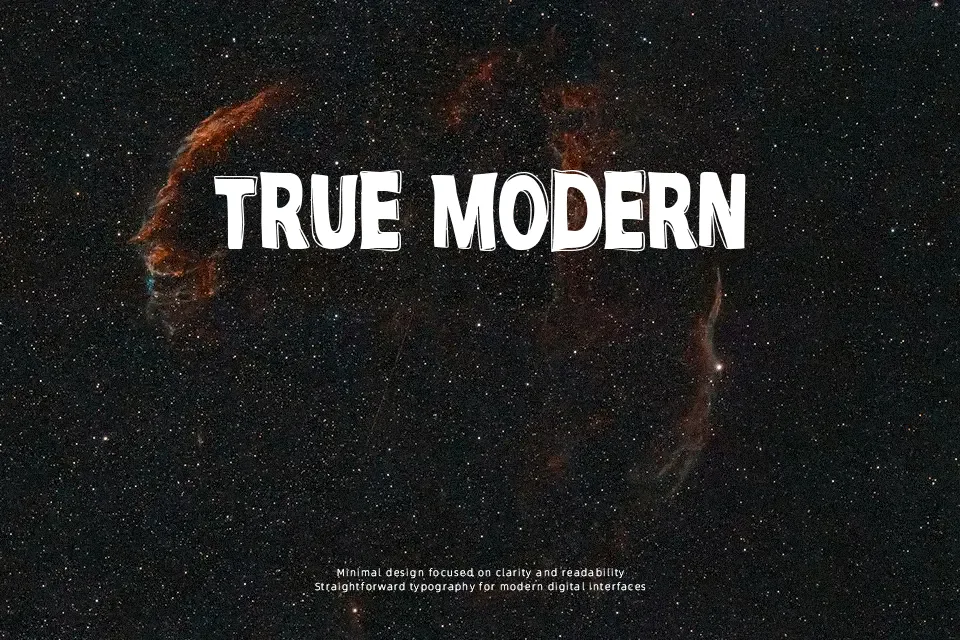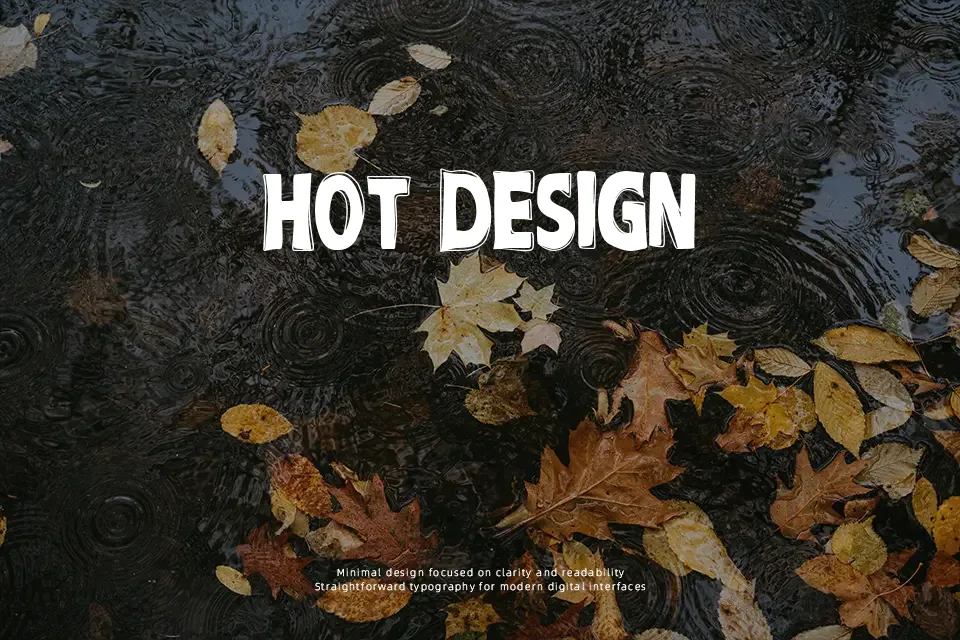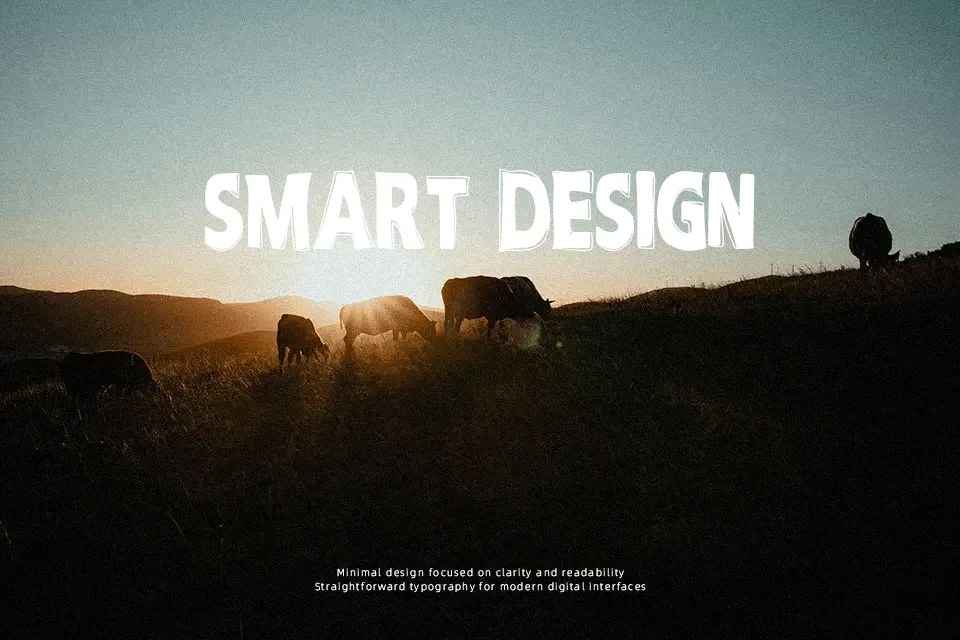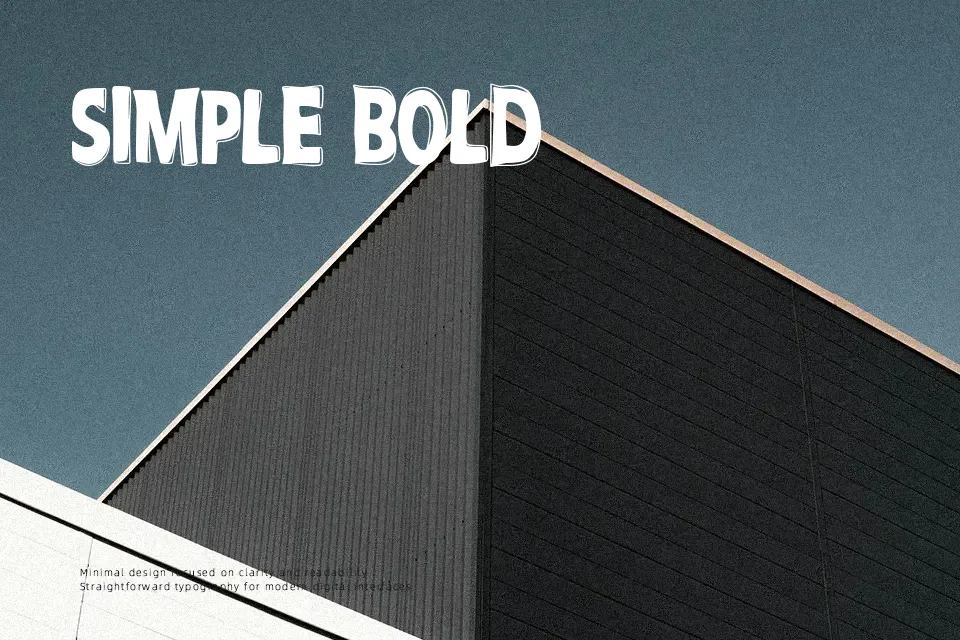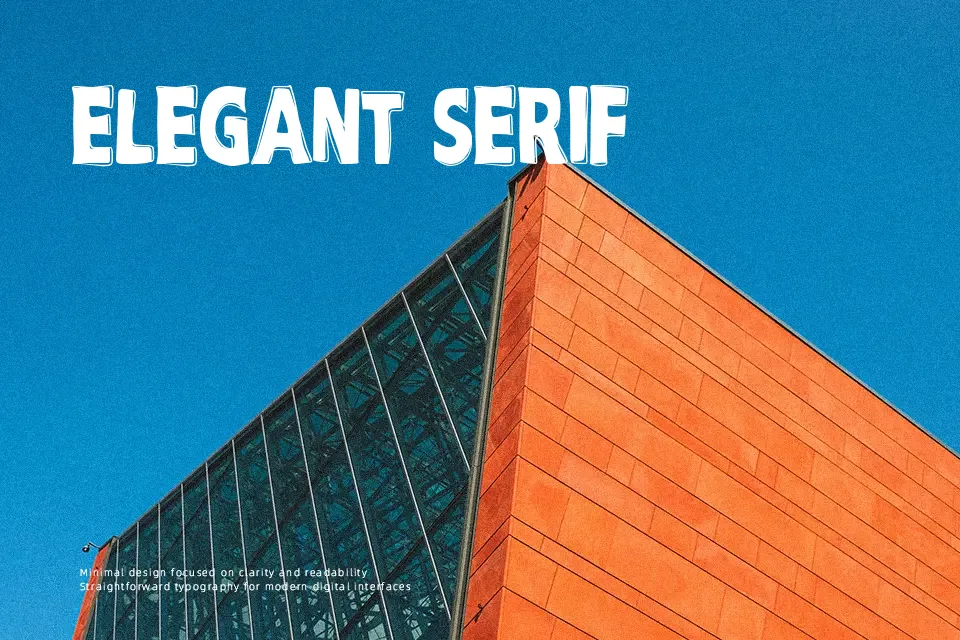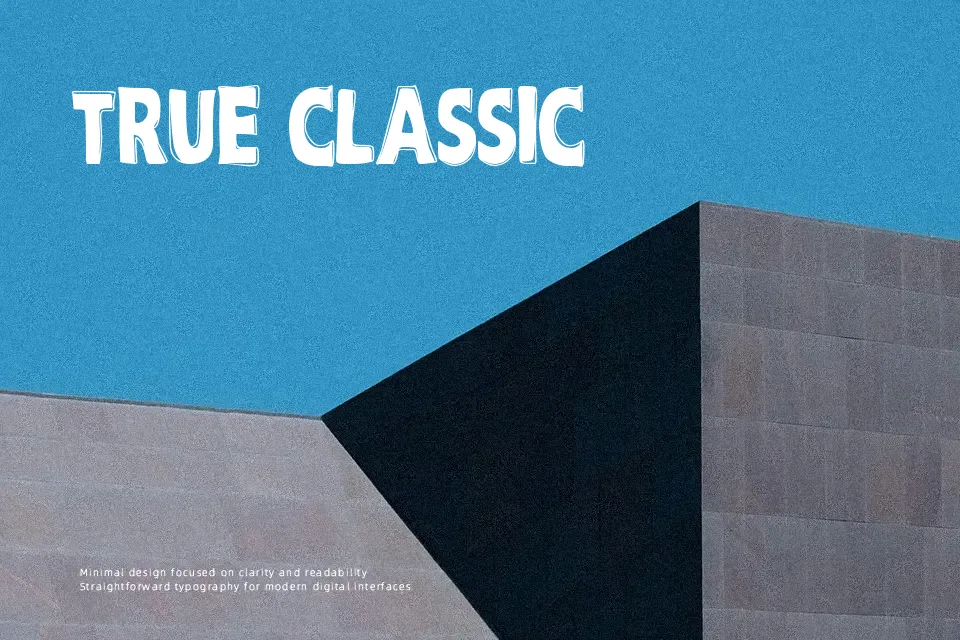
Anti-Hero Font
Starting with heavy, rounded letterforms and loose spacing, Anti-Hero comes across as a lively cartoon display face with a slightly rough, hand-drawn edge. Its chunky strokes and simplified shapes push attention toward bold words and short phrases rather than smooth body text. This font works well for comic-style headlines, playful poster tags, quirky YouTube thumbnails, and youth-focused branding that leans into exaggerated, graphic energy. It struggles in dense paragraphs or formal layouts, where its informal structure and weight quickly feel overwhelming. Visually, it behaves closer to a decorative cartoon display than a clean sans serif, so it shines when used sparingly as a loud accent rather than a workhorse typeface.
comic-style poster titles
youth merch or sticker designs
social media thumbnails and banners
small UI labels or captions
Perfect for gaming, headline, and logo, with a artistic and cartoon style.